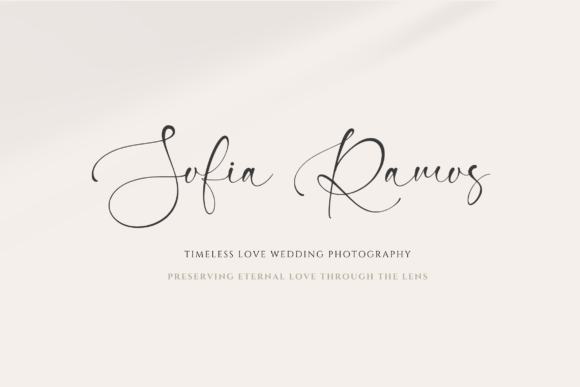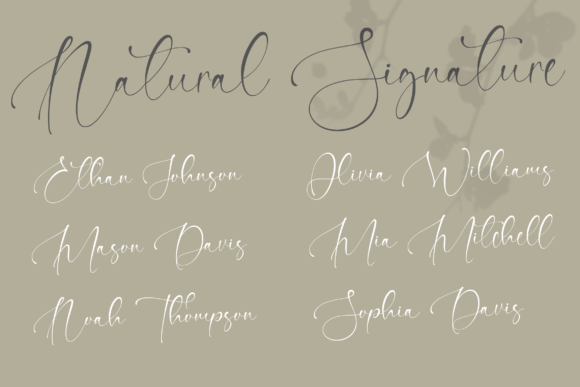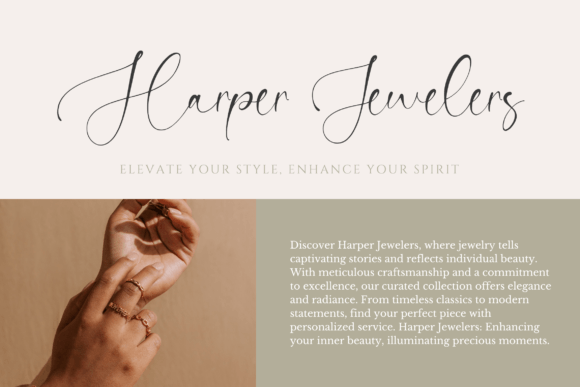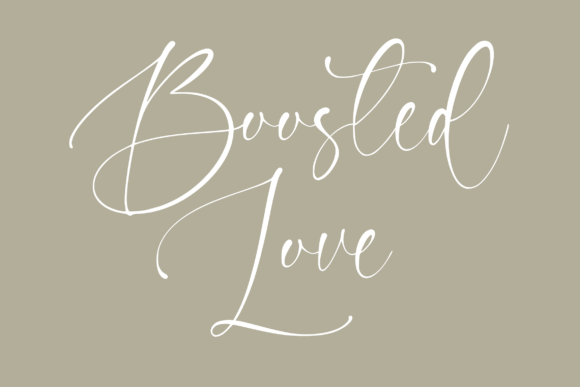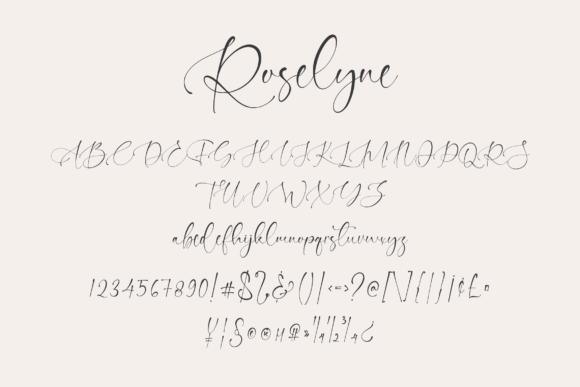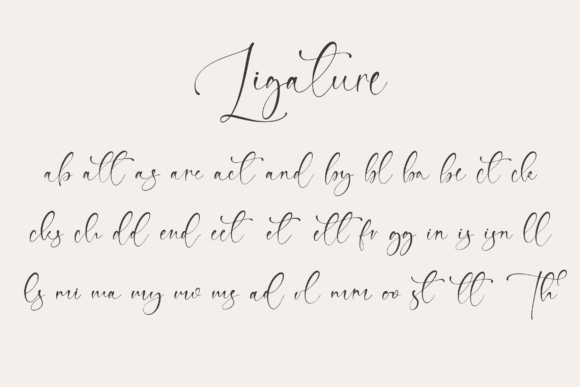
Introduction to Roselyne Font
Discover the beauty of Roselyne, a modern signature handwriting font that adds a touch of elegance to your designs.
With its sleek and stylish strokes, Roselyne is perfect for logos, branding materials, invitations, and more .
Key Features of Roselyne Font
Why Choose Roselyne Font?
Roselyne Font offers exceptional quality and versatility, making it a valuable addition to your design toolkit. Whether you’re creating for personal projects or commercial use, Roselyne Font delivers professional results.